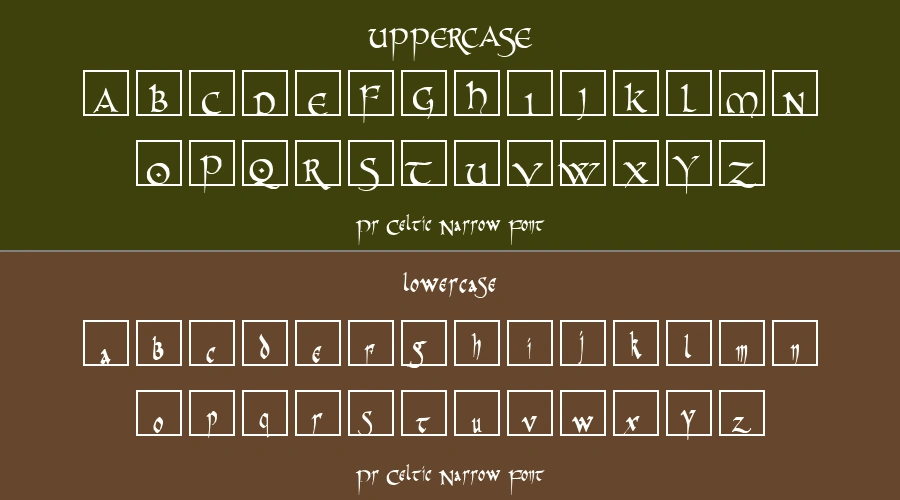
About Pr Celtic Narrow Font
Designed with precision, Pr Celtic Narrow Font merges subtle details with visual impact in every character. This versatility makes it particularly effective for corporate identity, where clarity and industrial strength directly impact communication quality. Each letterform demonstrates meticulous craftsmanship.
Technical excellence shines through elements like engineered curves and small caps, enhancing typographic versatility. In certification marks settings, Pr Celtic Narrow Font proves its worth through superior multi-color registration. The thoughtful execution of counter aperture and market position ensures professional results.